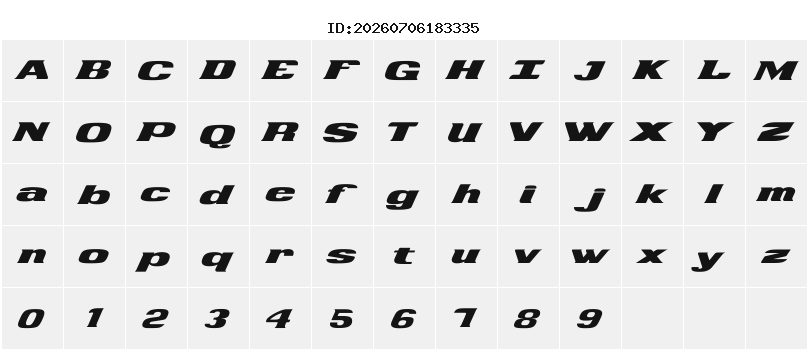
Desperado Preview
• Font Name: Desperado
• Full Font Name: Desperado
About Desperado.ttf
Desperado.ttf is a modern, elegant sans-serif font designed for ultimate readability and visual harmony. Perfect for branding, headlines, web design, and print materials.